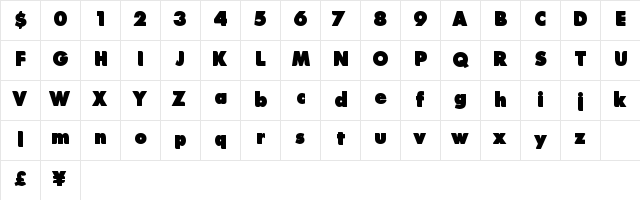
TrainStation Regular
| Foundry | Xerographer Fonts |
| Designer | Xerographer Fonts Max Infeld |
Design Context for TrainStation Typeface
TrainStation takes a measured approach to typography — its balanced proportions and neutral character make it a reliable workhorse for both digital and print work.